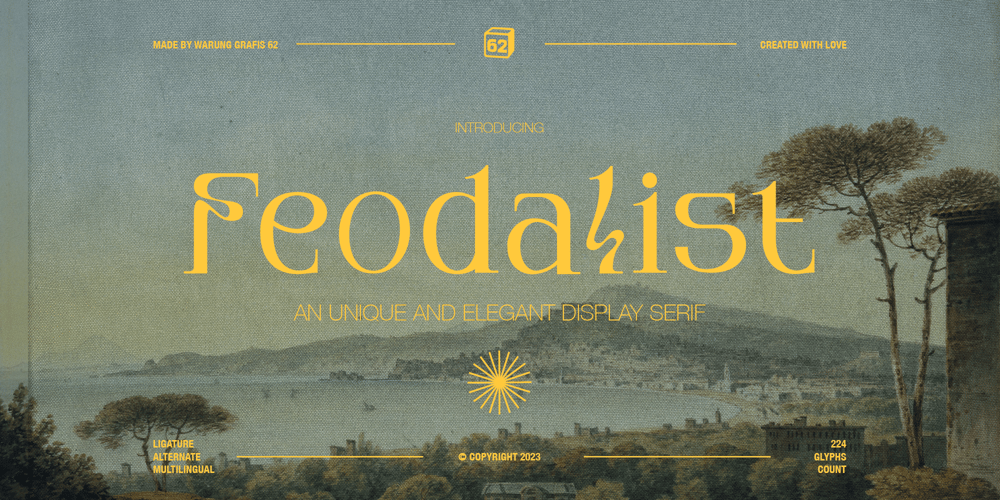
Feodalist Font Family was designed by Rijalul Kamal, Rizal Mustiko Adji and published by Warung Grafis 62. Feodalist contains 1 styles and family package options. Feodalist is a timeless serif font that effortlessly embodies elegance and luxury. Its classic design, with a touch of uniqueness, adds sophistication to various projects. With meticulously crafted letterforms, Feodalist seamlessly fuses tradition and modernity. The font encompasses:- Uppercase and lowercase letters- Symbols, numbers, and punctuation- Ligatures and alternates for added versatility- Multilingual support for broader usability.